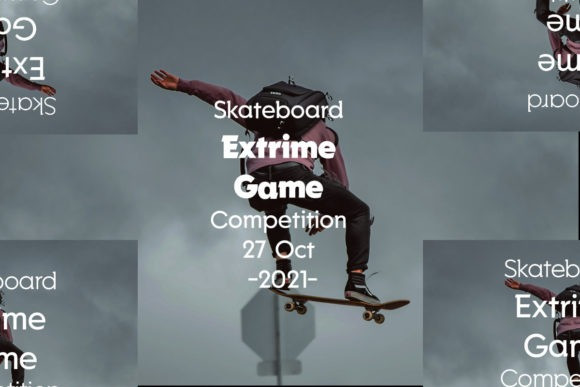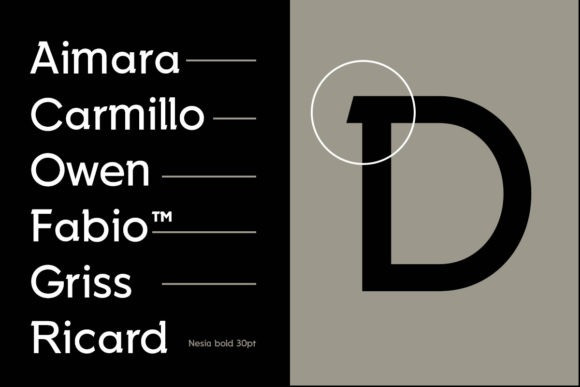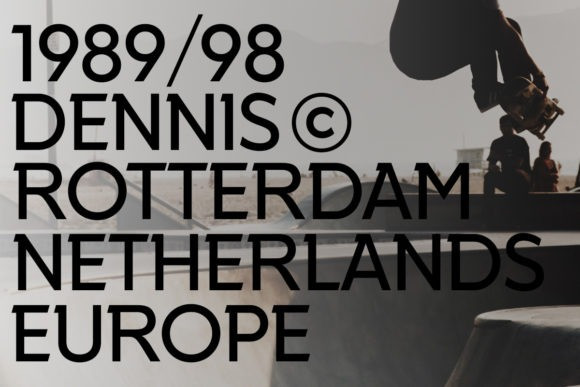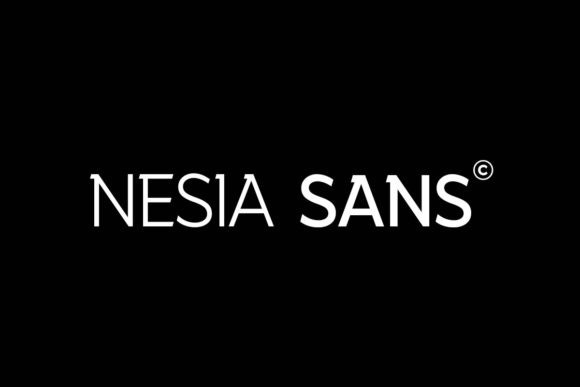
Nesia Sans Font
This Font designed by Ryan Vierra is a timeless sans serif with an elegant font style. With sleek and neat lines, and with just a hint of contrast. Simple and sharp-looking, this typeface will truly inspire you to create spectacular designs that will impress everyone!